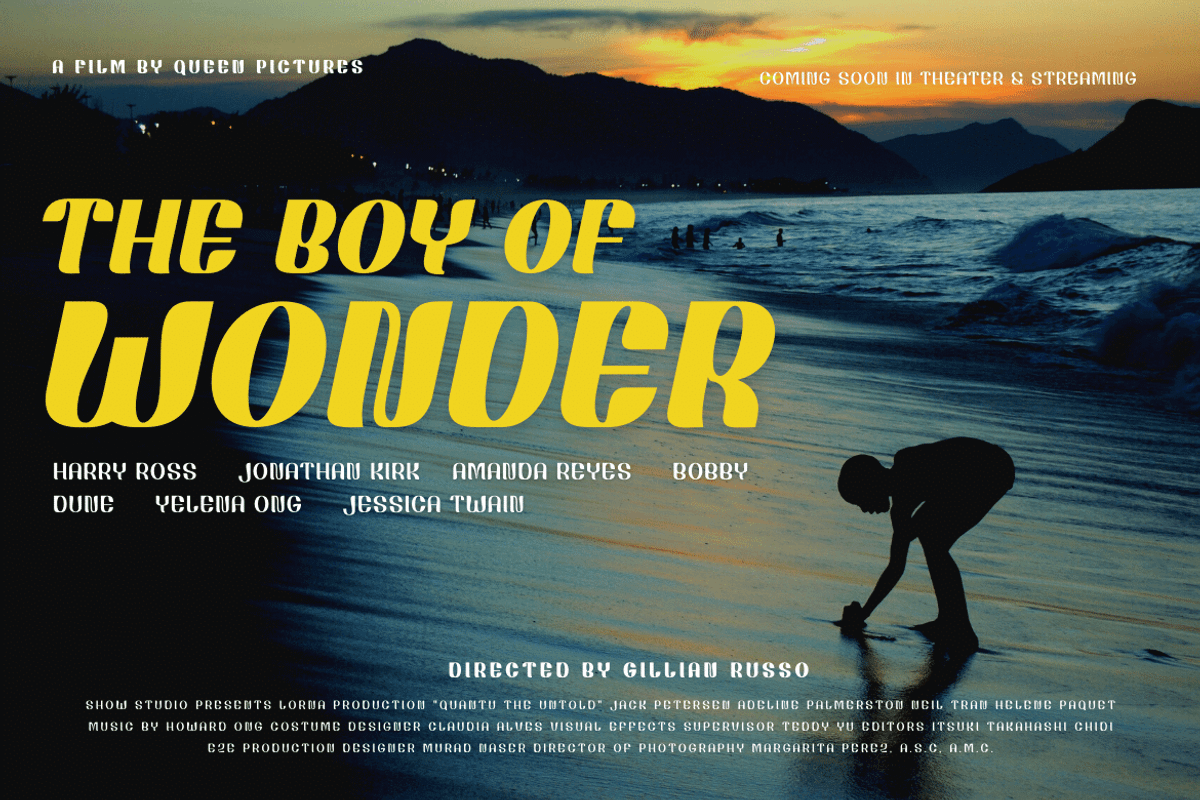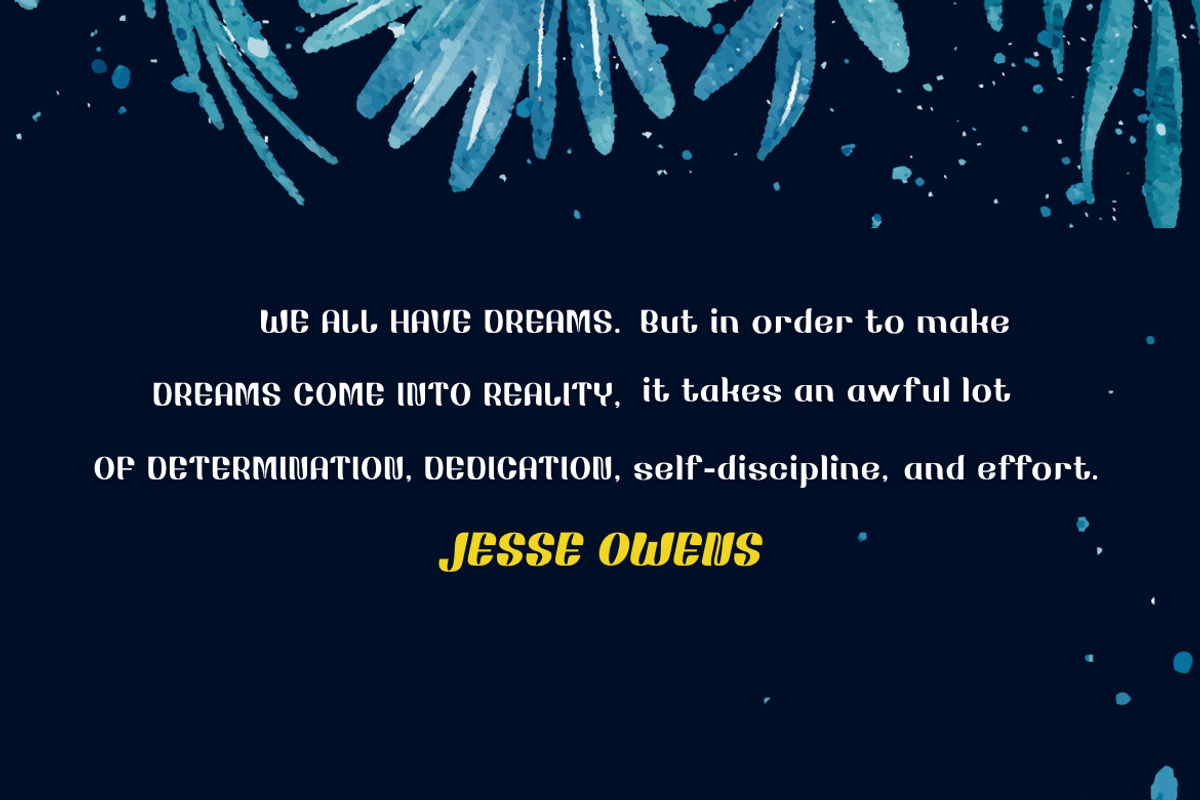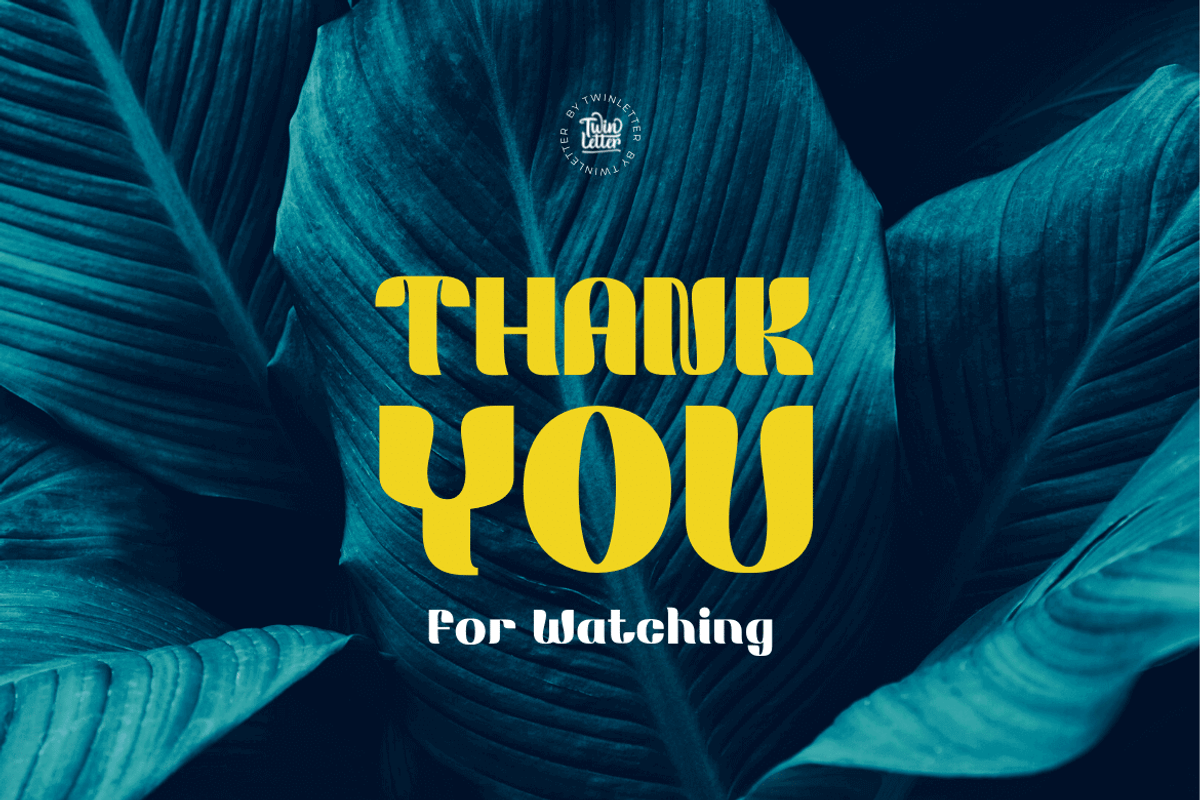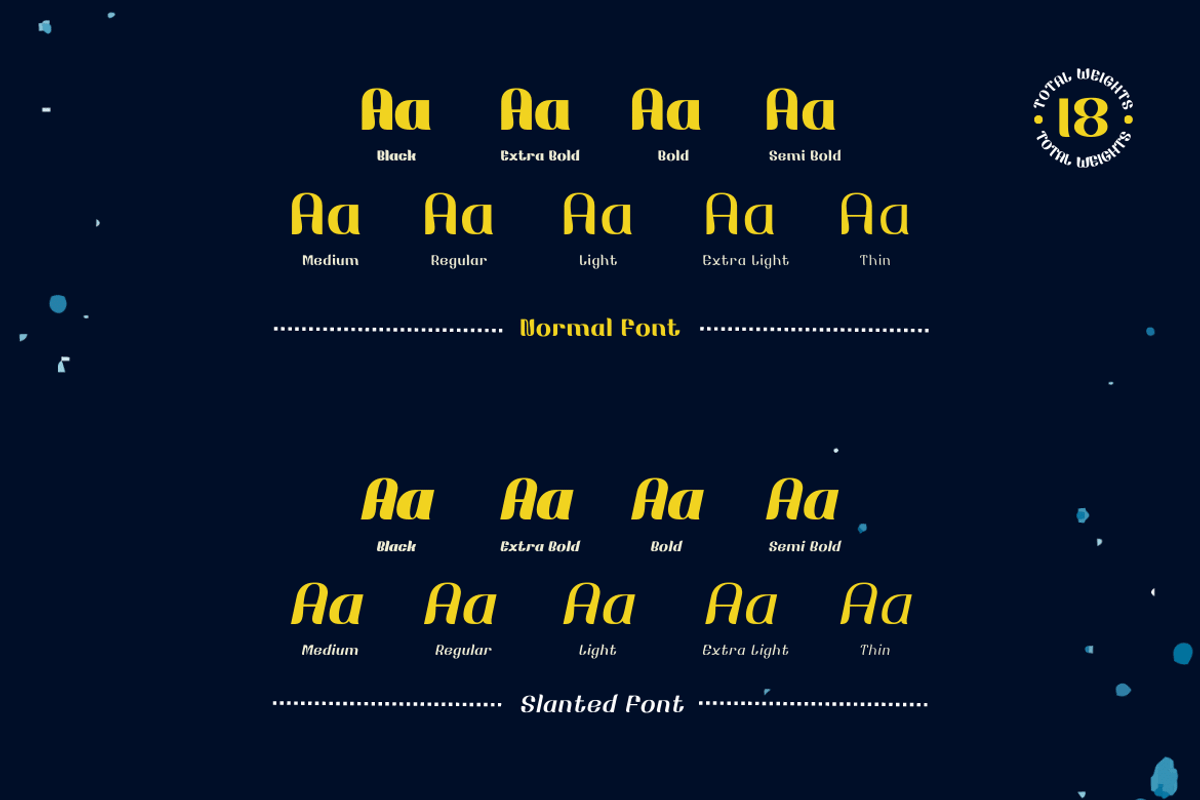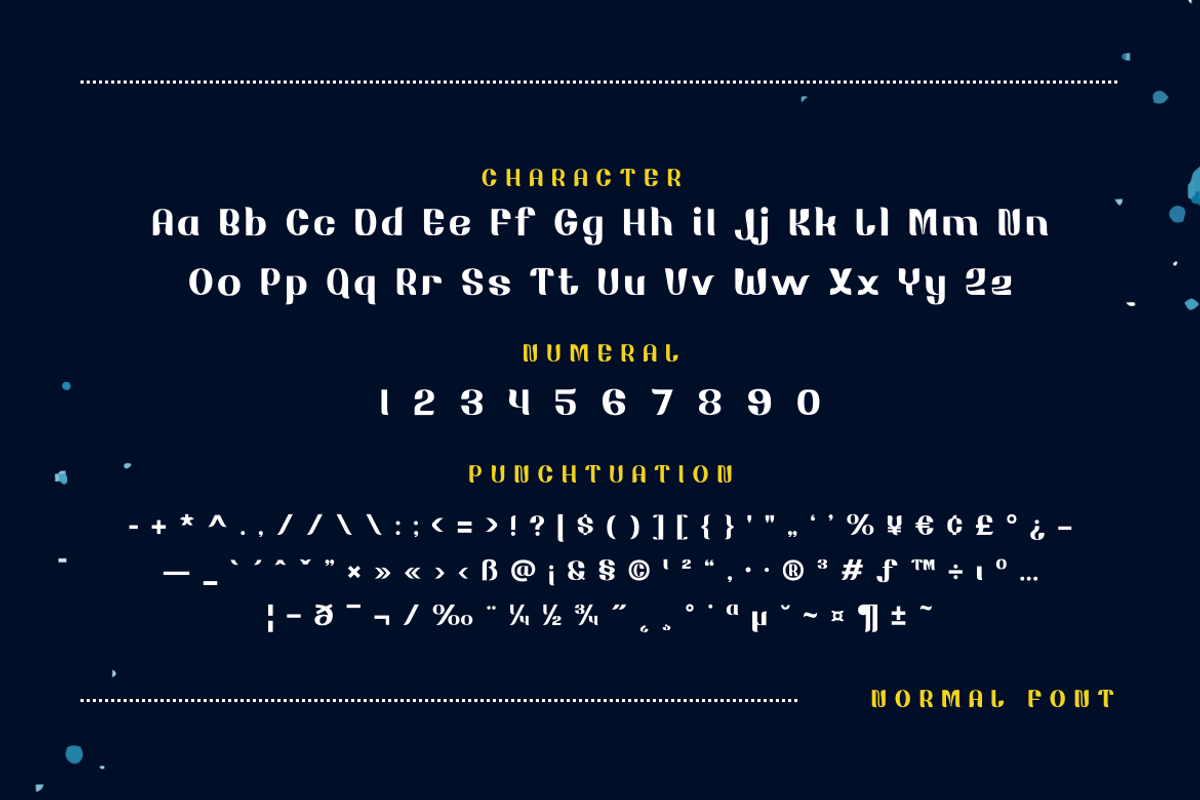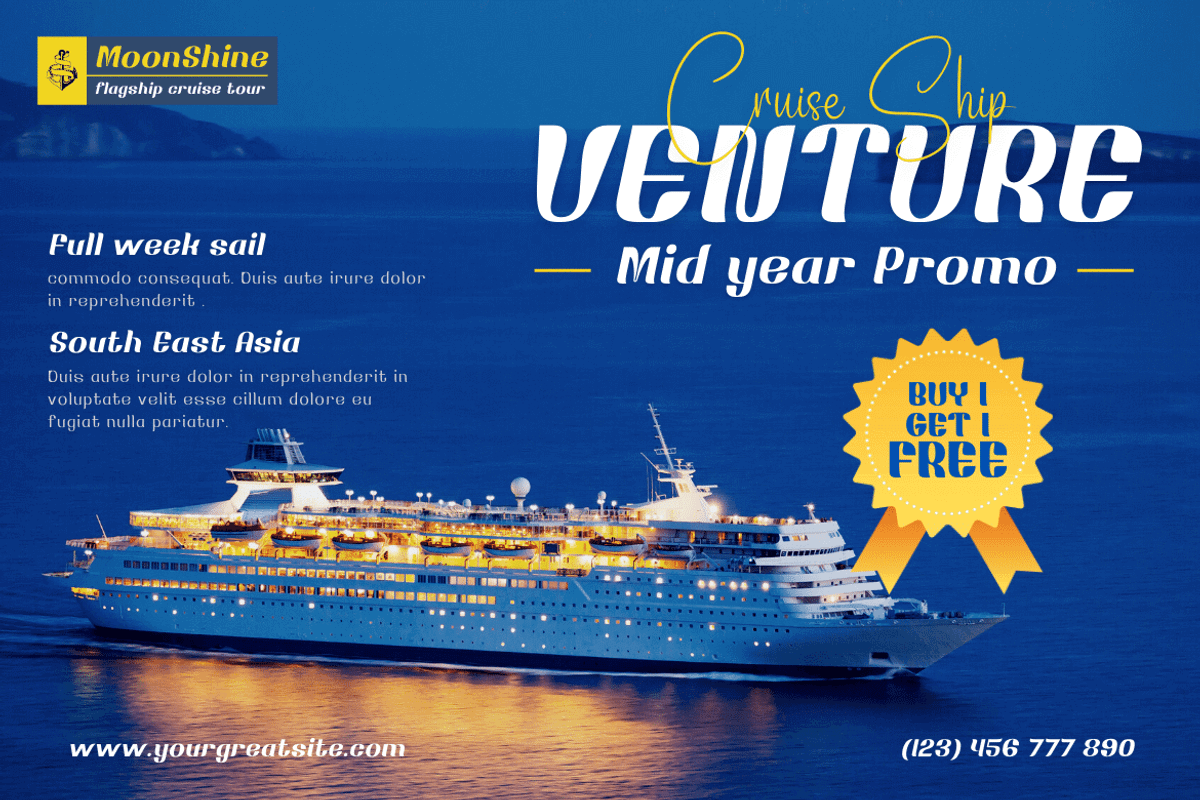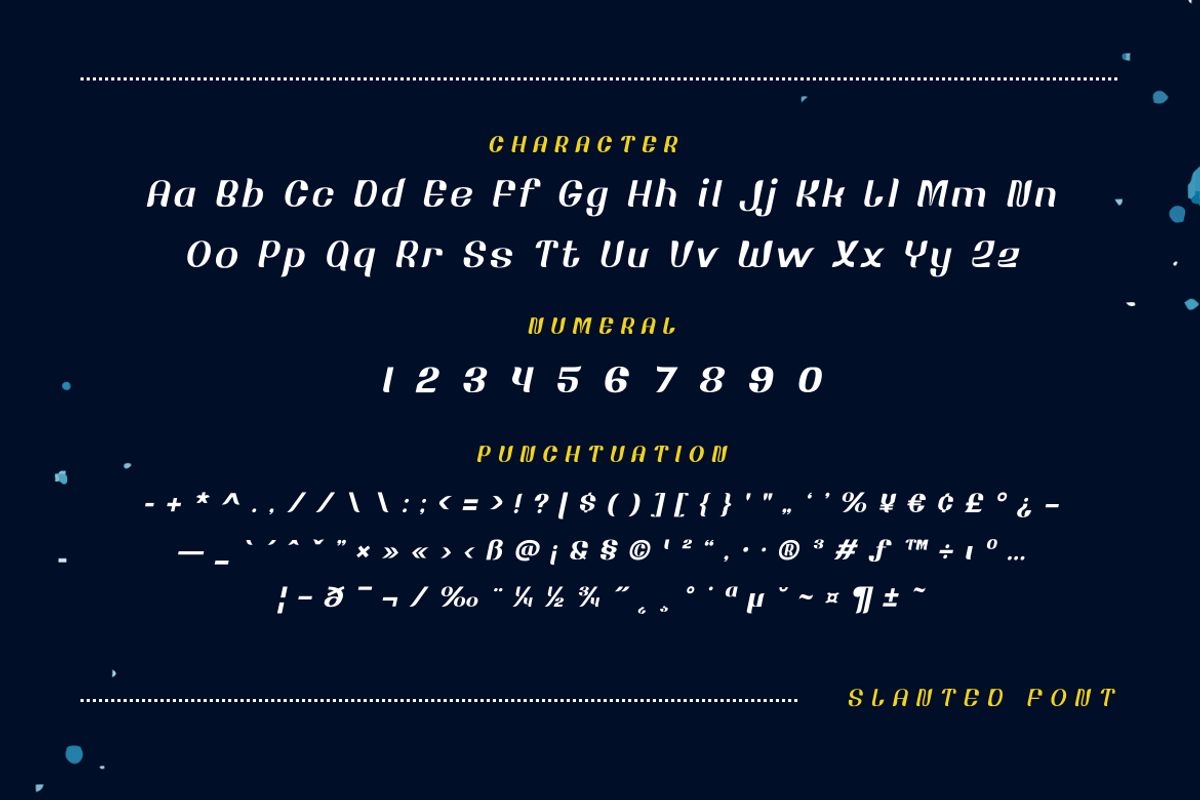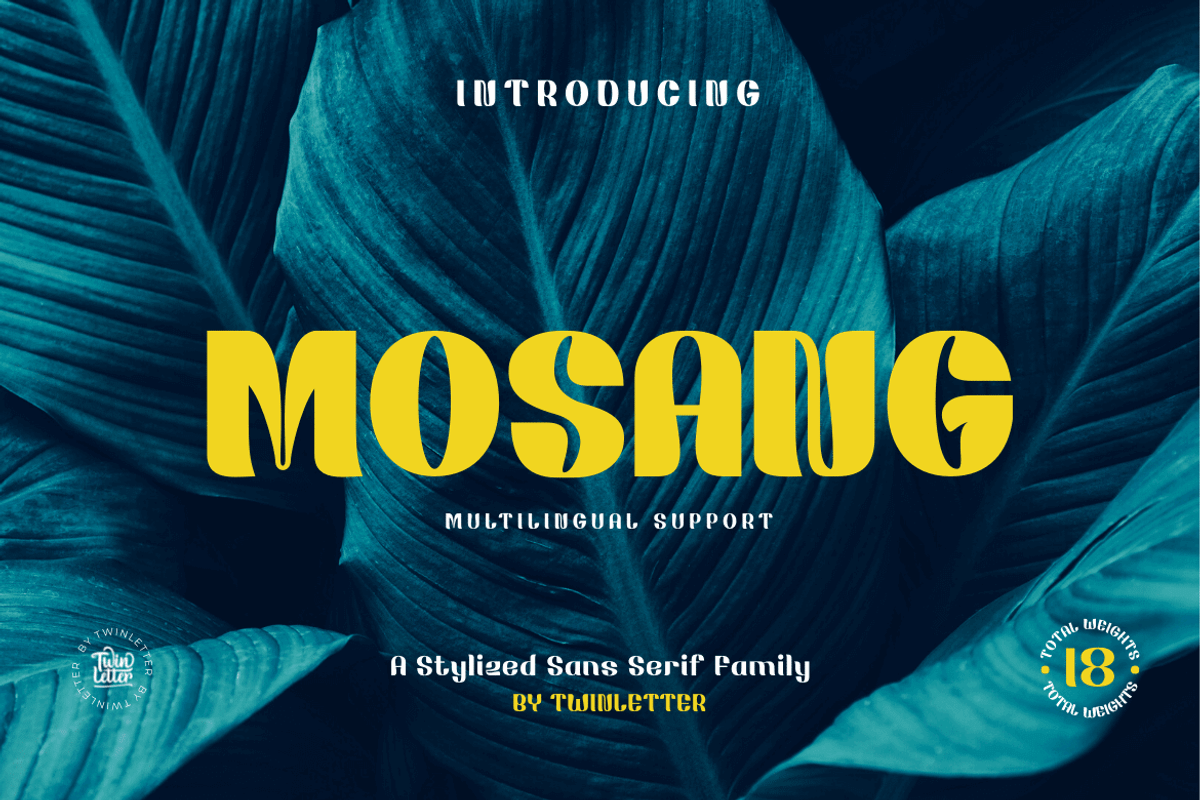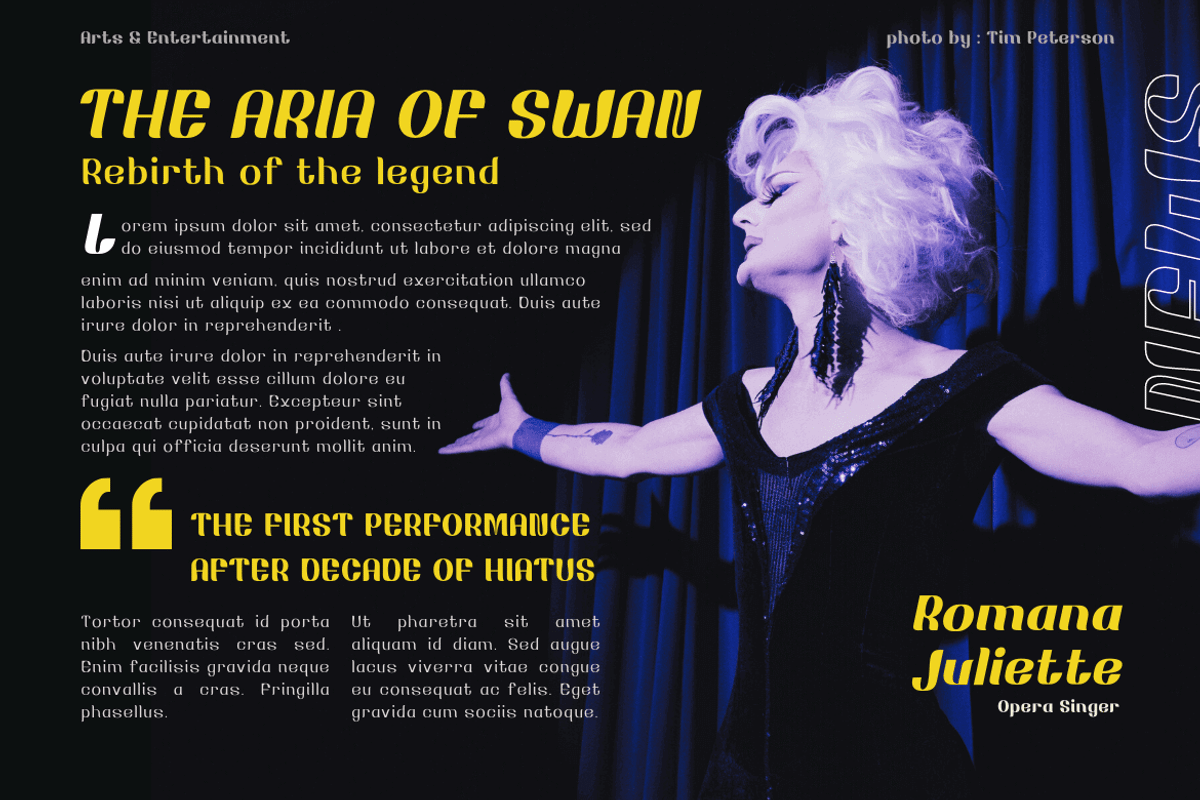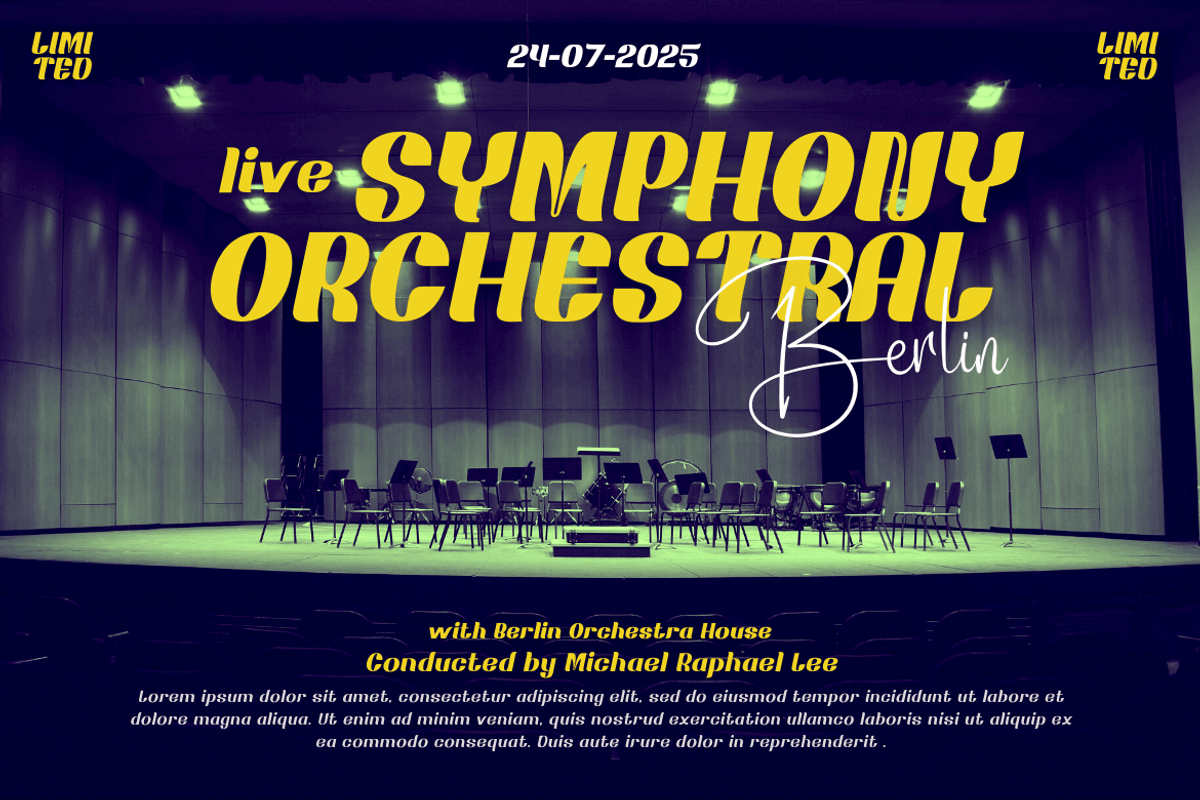
Mosang
Do you need a beautiful font with a distinctive shape for your business or other purposes? introduce MOSANG San Serif is a premium font family that comes in 18 different styles. Designed to assist you in creating visually stunning projects of any kind. Mosang has everything you need, whether you’re looking for a logo or an all-in-one font, with a wide variety of font styles to choose from and a simple way to place them on your logos and graphics.
of course, your various design projects will be perfect and extraordinary if you use this font because this font is equipped with a font family, both for titles and subtitles and sentence text, start using our fonts for your extraordinary projects.